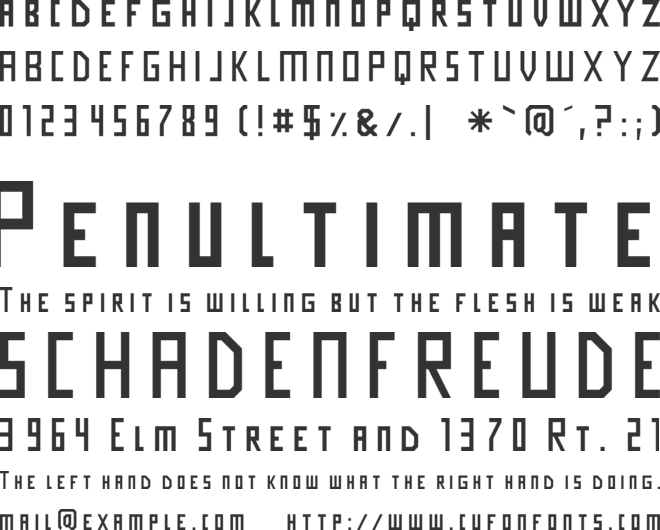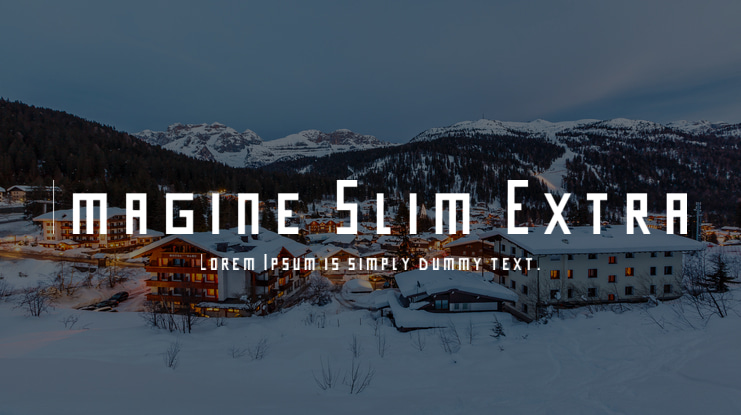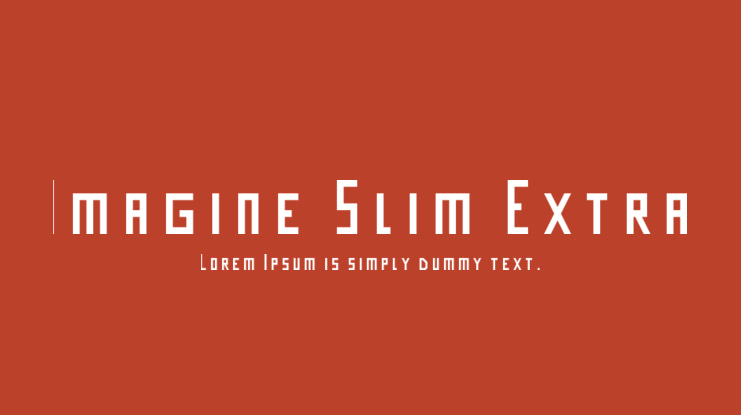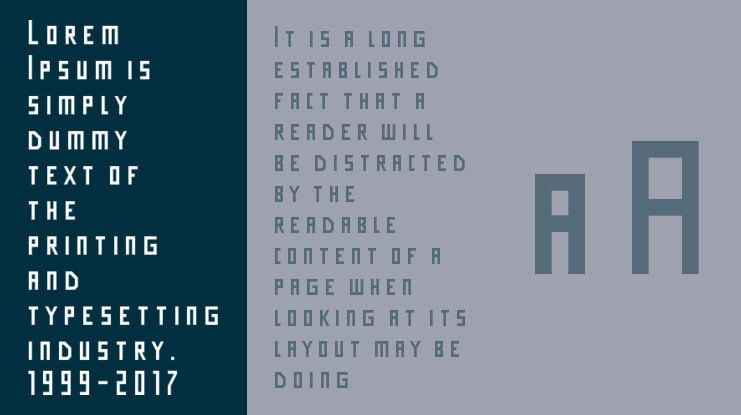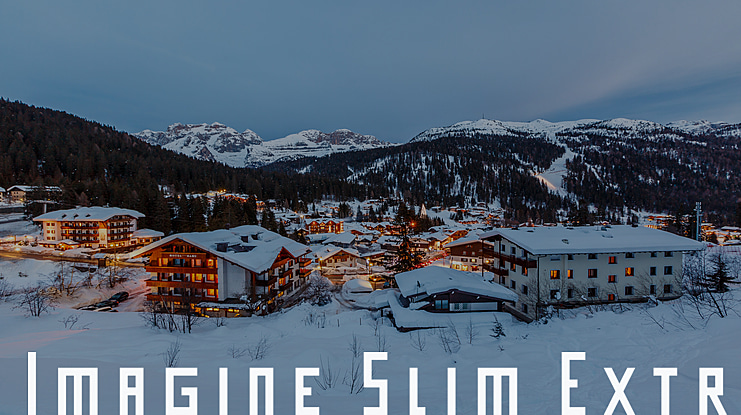
Imagine Slim Extra Font
This futuristic small cabs was created for my Game Project www.ImagineEarth.info A simple block techno square font for headlines and styles!